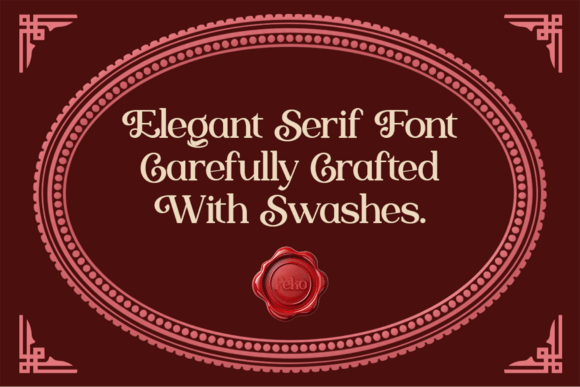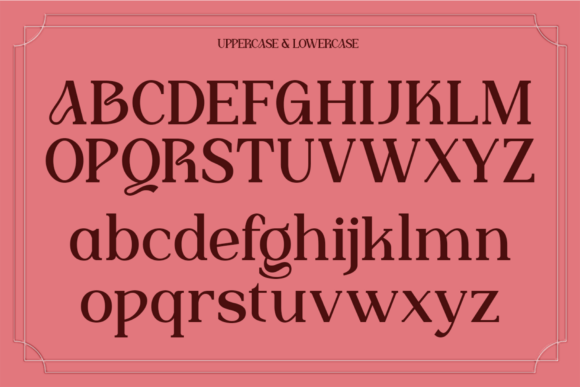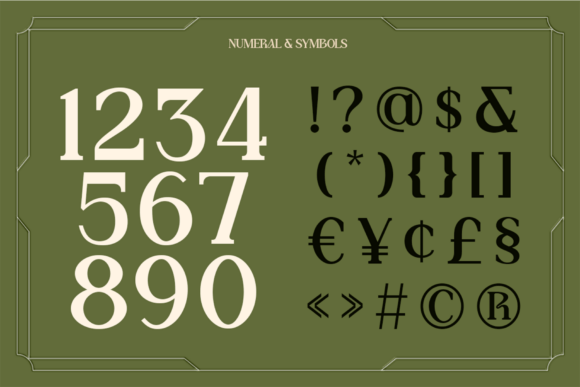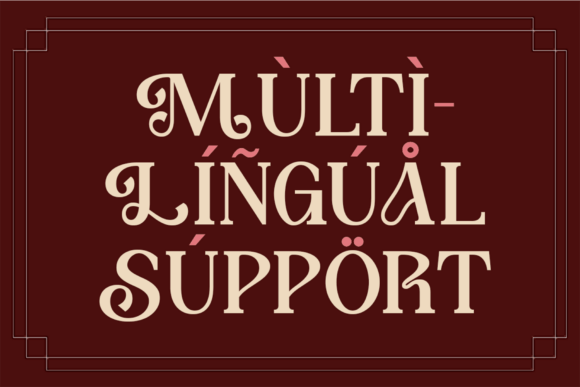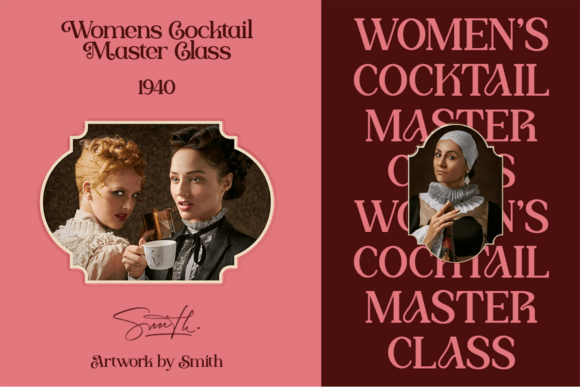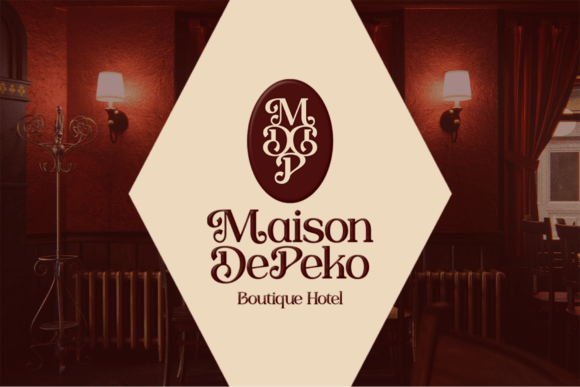
**AIGOS** – Elegant Serif Display Font with Stylish Swashes
Meet Aigos, an elegant serif display font that blends classic sophistication with modern charm. Designed with graceful curves and refined swashes, Aigos adds a touch of luxury to every design. Perfect for branding, logos, invitations, packaging, menus, editorials, and social media graphics, this font elevates your work with timeless beauty and high-end appeal.
Unleash Your Creativity with Aigos
Aigos is more than just a font – it’s a design statement. With its sophisticated serif structure and stylish swashes, this font is ideal for designers and crafters looking to add a touch of elegance to their work. Whether you’re creating for a boutique brand or a fine dining restaurant, Aigos brings your visuals to life with class and sophistication.
Key Features of Aigos
- Uppercase & Lowercase Letters: Aigos comes with a full range of uppercase and lowercase letters, allowing you to create stunning text-based designs.
- Multilingual Support: With support for multiple languages, Aigos is perfect for designers working on international projects.
- Beautifully Designed Alternates: Add an extra touch of elegance to your designs with Aigos’ beautifully designed alternates.
- Stylish Swashes: Aigos’ refined swashes add a touch of luxury to every design, making it perfect for high-end branding and advertising.
Aigos is a versatile font that can be used for a wide range of design projects, including:
- Branding: Create stunning logos and brand identities with Aigos’ elegant serif structure.
- Invitations: Add a touch of luxury to your wedding invitations, event invitations, and other formal correspondence.
- Packaging: Elevate your product packaging with Aigos’ sophisticated design.
- Menus: Create mouth-watering menus for fine dining restaurants and cafes with Aigos.
- Editorials: Add a touch of elegance to your editorial designs, such as magazines and newspapers.
- Social Media Graphics: Create stunning social media graphics with Aigos’ stylish swashes and elegant serif structure.
Why Choose Aigos?
With so many fonts available, why choose Aigos? Here are just a few reasons why Aigos stands out from the crowd:
- Timeless Beauty: Aigos has a timeless beauty that will never go out of style.
- High-End Appeal: Aigos adds a touch of luxury to every design, making it perfect for high-end branding and advertising.
- Elegant Serif Structure: Aigos’ elegant serif structure makes it perfect for designs that require a touch of sophistication.
- Stylish Swashes: Aigos’ stylish swashes add a touch of elegance to every design.
If you’re looking for a font that will elevate your designs and add a touch of luxury, look no further than Aigos. With its elegant serif structure, stylish swashes, and timeless beauty, Aigos is the perfect choice for designers and crafters who want to create stunning designs.